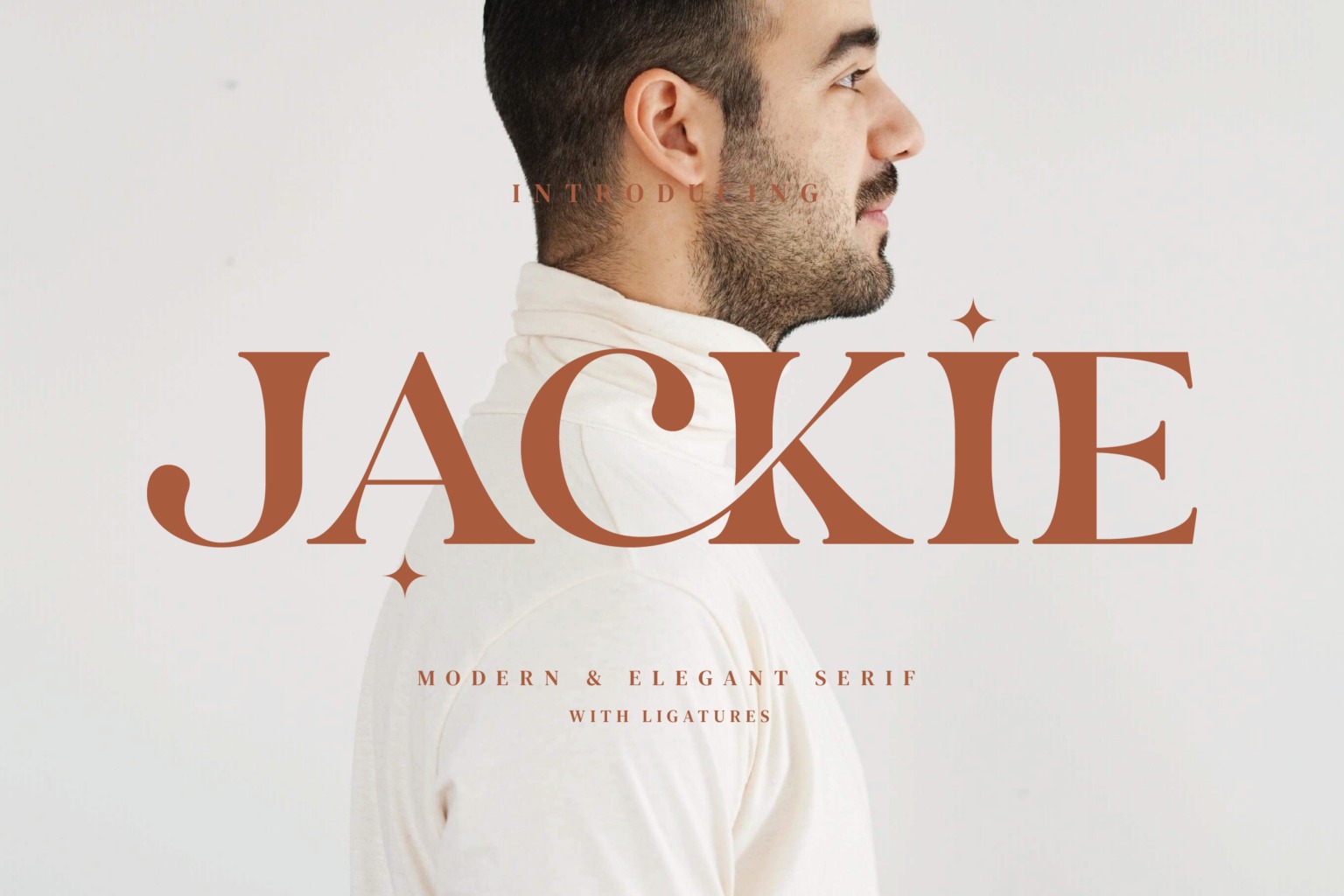
Jackie – Elegant Serif Font
Jackie – Elegant Serif Font is a distinctive and expressive font crafted to bring personality, structure, and creative energy into your projects. Jackie Stylish Ligature Typeface, inspired by the famous minimalist logo perfect for the purposes of designing templates, brochures, videos, advertising branding, logos and more.